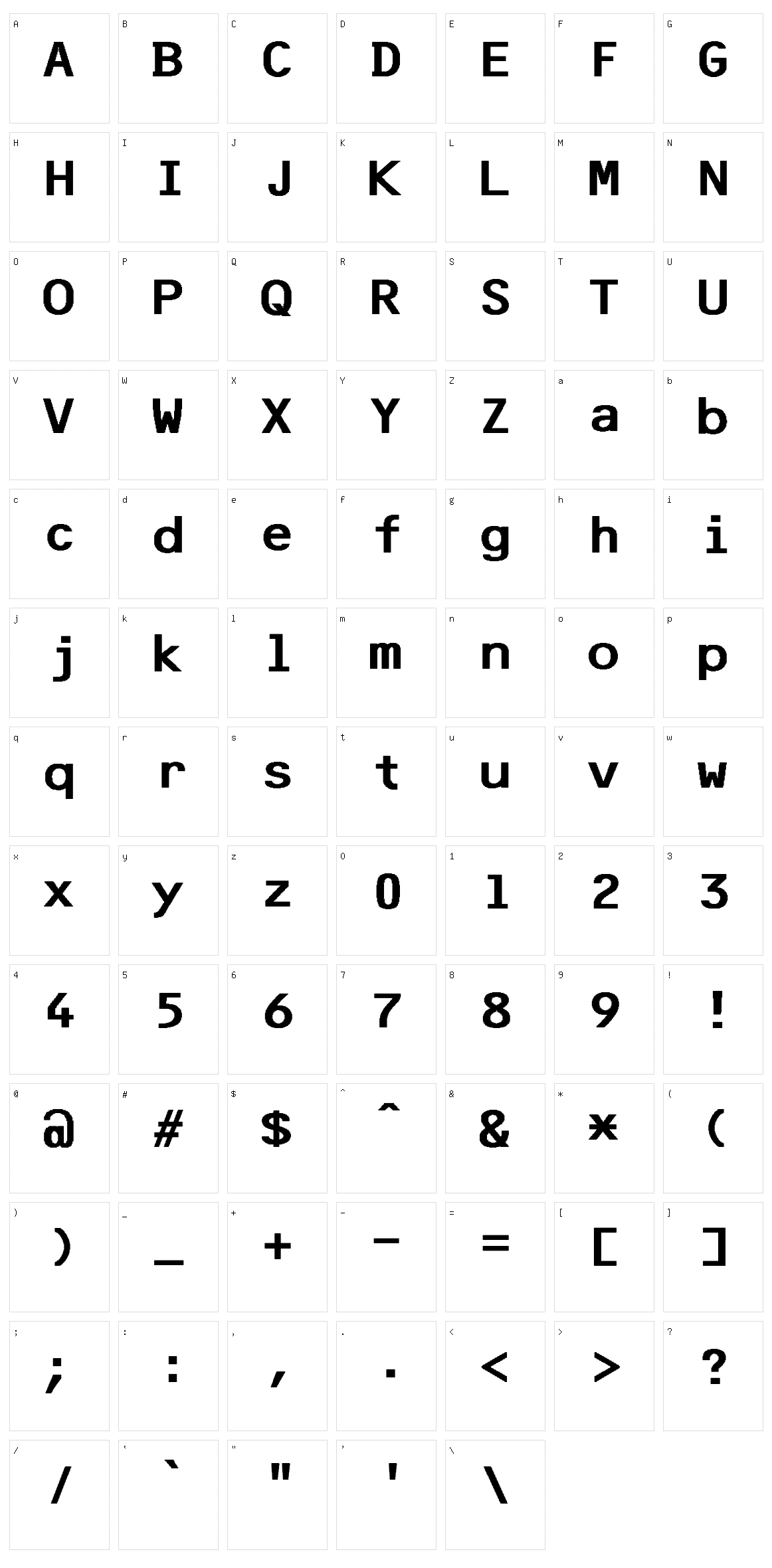
The free font F25 Bank Printer is carefully designed by Volker Busse - F25 Digital Typeface Design, showcasing a thoughtful balance of creativity and usability and falls under the Fixed width font style. When you download the ZIP file, it contains only 164.9 KB of font files, making it lightweight and quick to download. Please review the license details below to understand permitted usage and distribution rights. If license information is not available, we recommend using this font for personal projects only or contacting the author directly for commercial usage permissions.